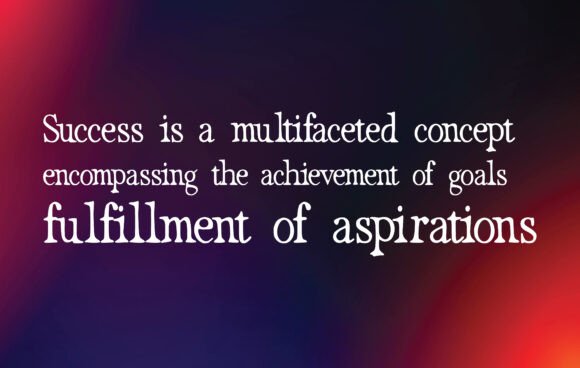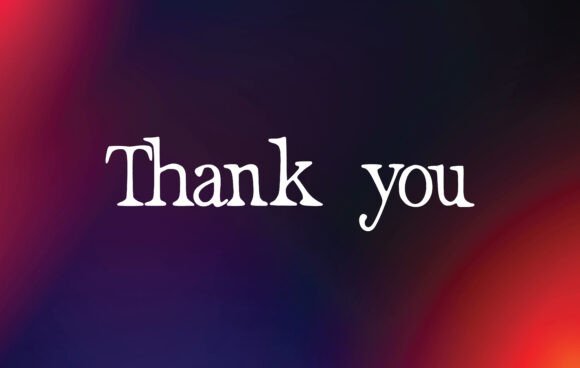
Introducing Finley Font: Elevate Your Creative Projects with Style and Legibility
In the world of typography, a great font can make all the difference in bringing your creative ideas to life. Meet Finley Font, a versatile and stylish typeface designed to be a true favorite among designers and crafters. With its exceptional legibility and stunning appearance, Finley Font is poised to take your projects to the highest level.
A Font for Every Creative Need
Finley Font is a highly adaptable typeface that can be used for a wide range of applications. Whether you’re working on magazine headlines, t-shirt designs, social media graphics, branding materials, wedding invitations, or cards, this font is the perfect choice. Its clean lines, elegant curves, and balanced proportions make it an excellent option for both title and body text.
Key Features of Finley Font
- Exceptional Legibility: Finley Font is designed to be easily readable, making it perfect for body text and long-form content.
- Versatile and Adaptable: Use it for headlines, titles, and body text to create a cohesive look across your designs.
- Elegant and Sophisticated: Finley Font’s refined lines and curves add a touch of sophistication to any design.
- High-Quality Design: Crafted with attention to detail, Finley Font is a high-quality typeface that will elevate your designs.
Why Choose Finley Font?
With so many fonts available, why choose Finley Font? The answer lies in its unique combination of style, legibility, and versatility. This font is designed to be a workhorse, capable of handling a wide range of creative projects. Whether you’re a professional designer or a DIY enthusiast, Finley Font is an excellent addition to your typography arsenal.
Design Inspiration with Finley Font
Finley Font is perfect for designers and crafters looking to add a touch of elegance and sophistication to their work. Here are some design ideas to get you started:
- Magazine Headlines: Use Finley Font to create eye-catching headlines that grab attention and draw readers in.
- T-Shirt Designs: Add a stylish touch to your t-shirt designs with Finley Font’s bold and elegant lettering.
- Social Media Graphics: Elevate your social media graphics with Finley Font’s clean lines and sophisticated curves.
- Wedding Invitations: Make your wedding invitations truly special with Finley Font’s elegant and refined typography.
Tips for Using Finley Font
To get the most out of Finley Font, here are some tips to keep in mind:
- Experiment with Font Sizes: Finley Font looks great in a variety of font sizes, from large headlines to smaller body text.
- Pair with Other Fonts: Try pairing Finley Font with other fonts to create a unique and visually appealing typography combination.
- Use for Branding: Use Finley Font consistently across your branding materials to create a cohesive and recognizable visual identity.
In conclusion, Finley Font is an exceptional typeface that has the potential to elevate your creative projects to new heights. With its unique combination of style, legibility, and versatility, this font is perfect for designers and crafters looking to add a touch of elegance and sophistication to their work. Try Finley Font today and discover the difference it can make in your designs!